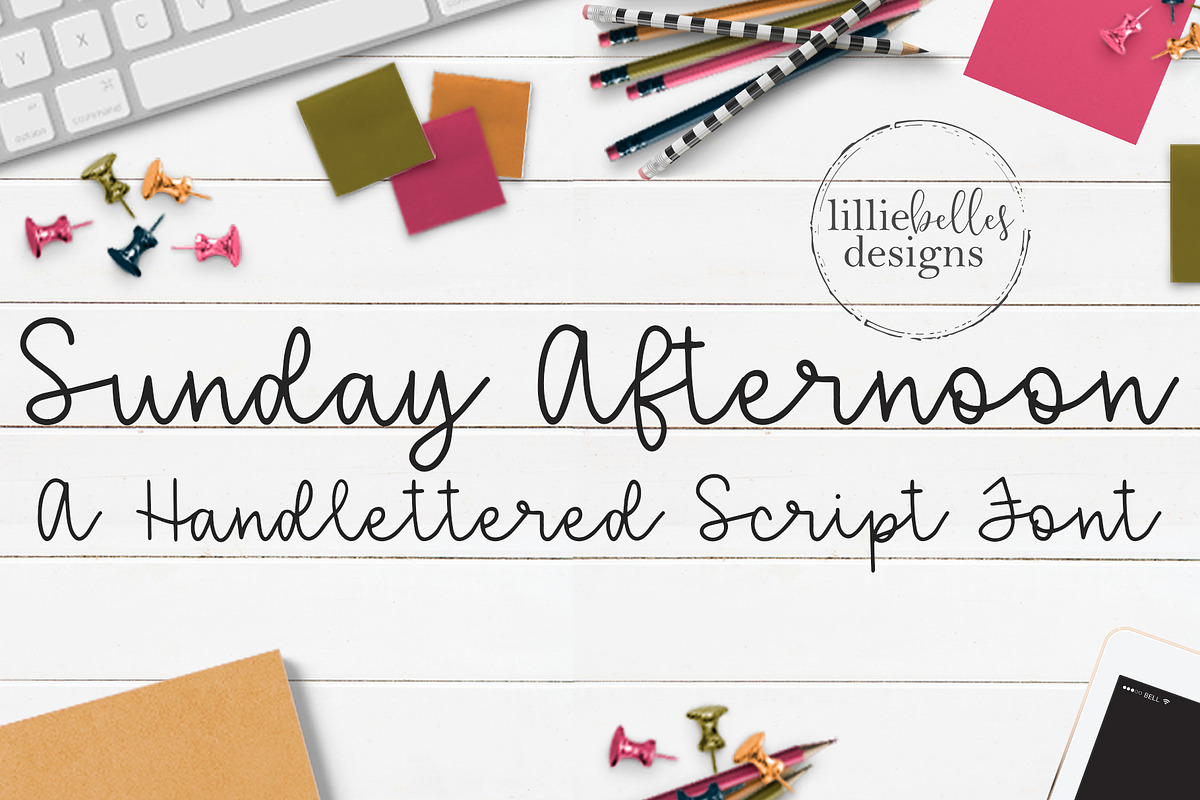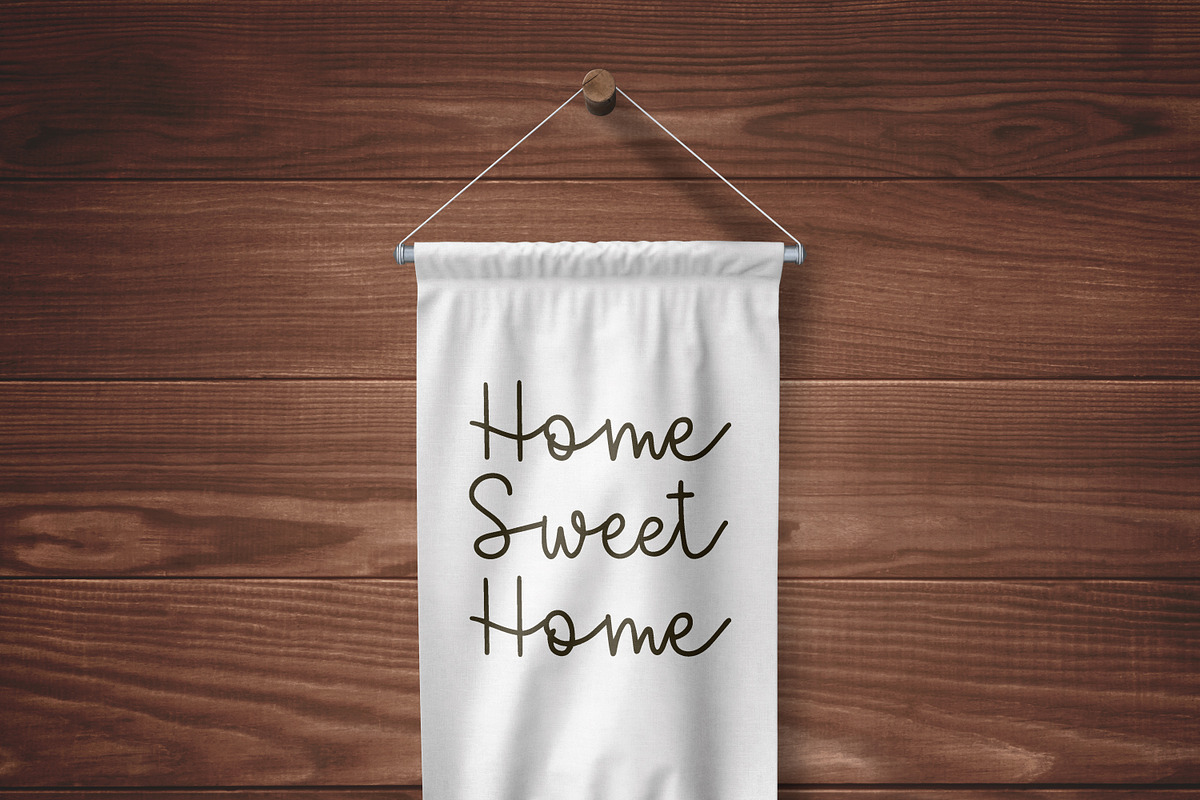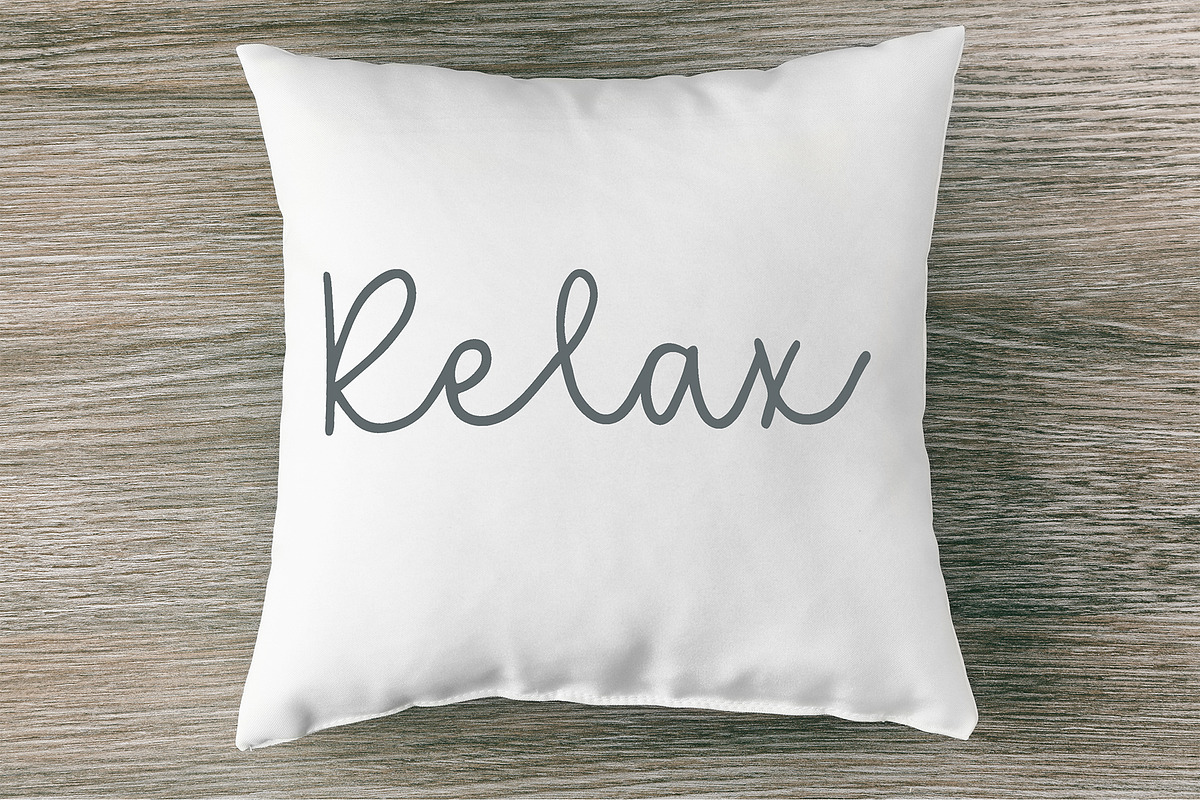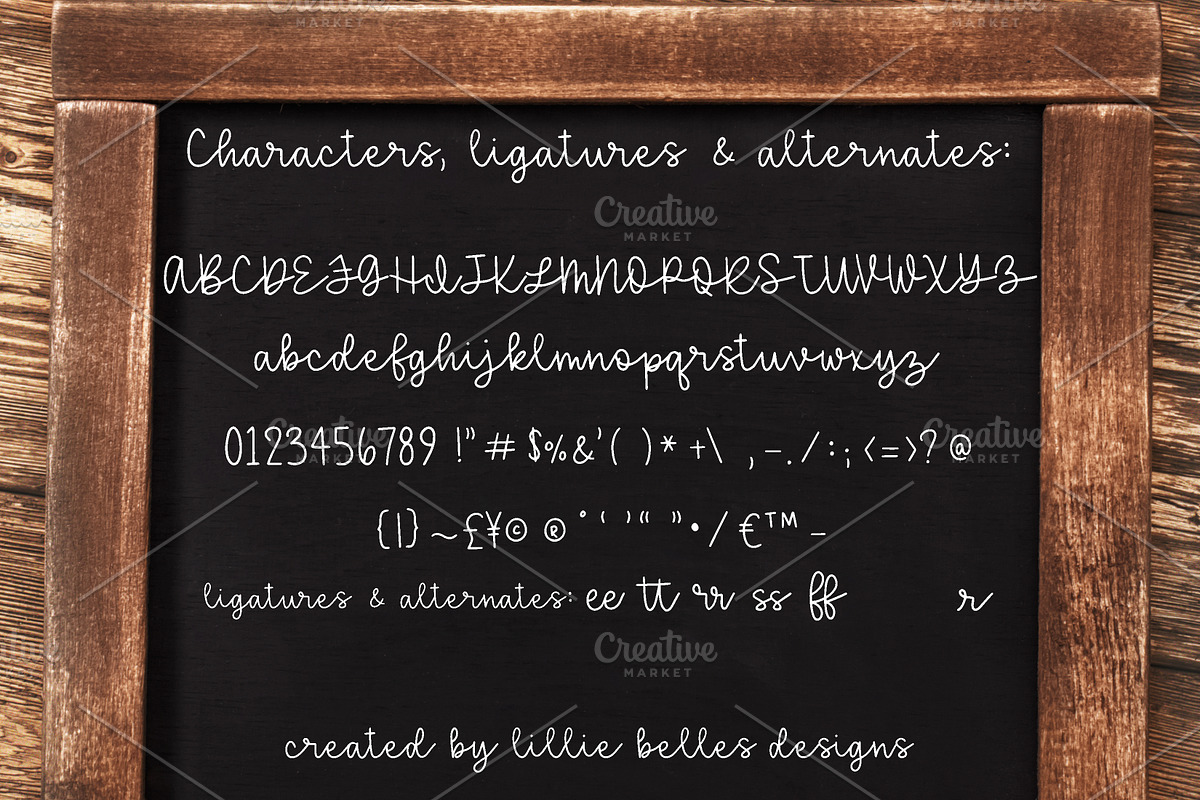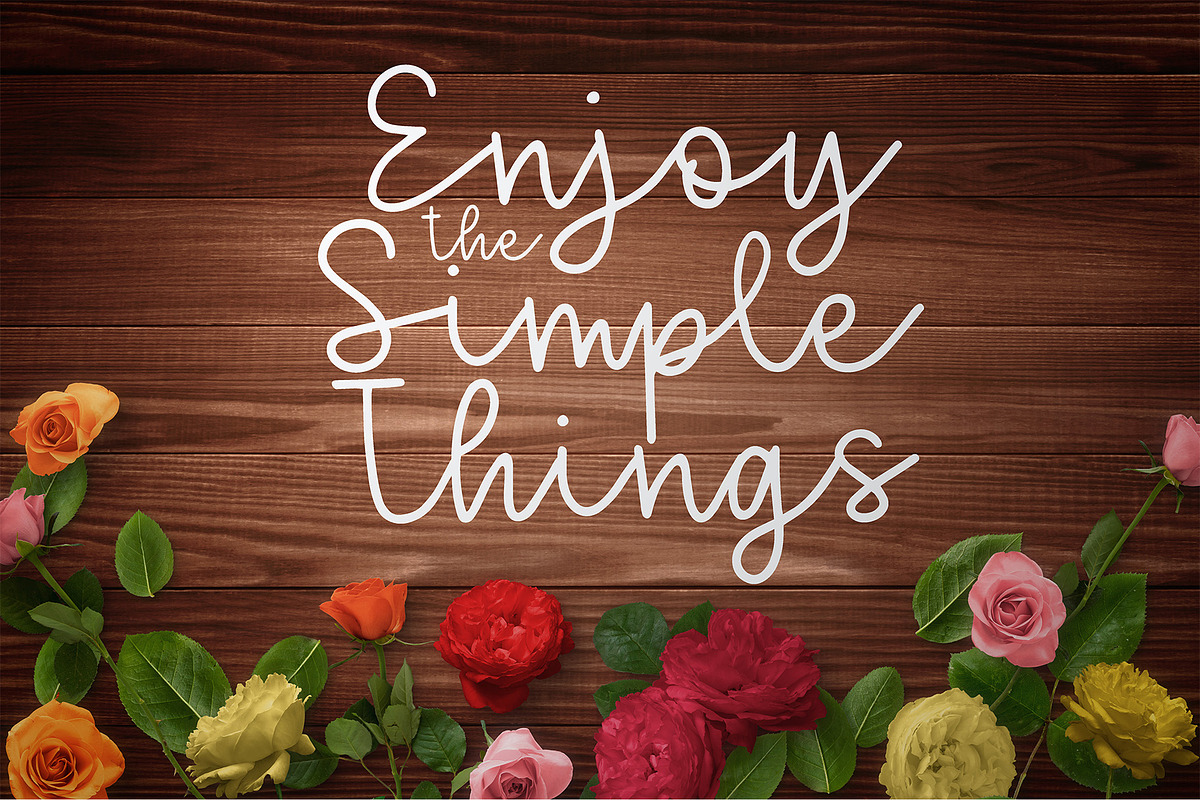
Sunday Afternoon font
Sunday Afternoon - A laid back and relaxed hand lettered script font...
Sunday afternoon is great casual script font that can be used in many different types of projects!
Sunday Afternoon font by lillie belles designs fits naturally into Branding, posters, packaging, typography.